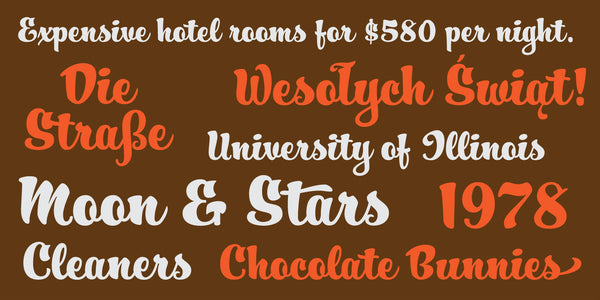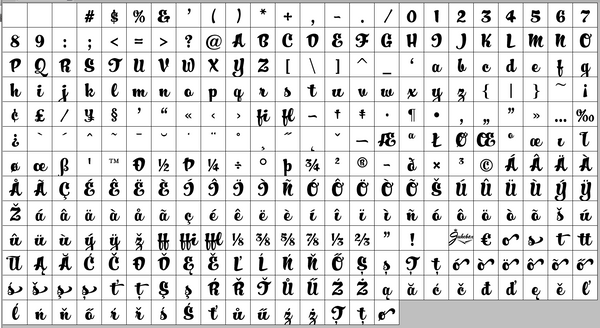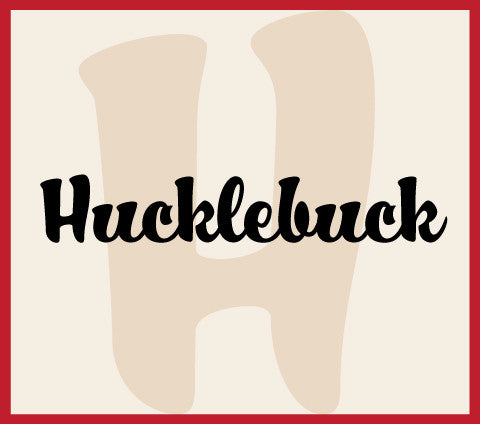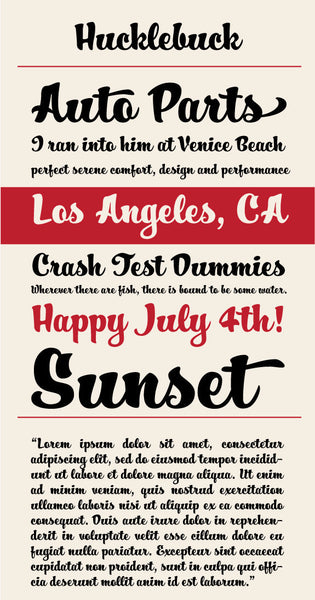
Hucklebuck
Hucklebuck is a retro, upright script font that is immensely appealing with its happy–go–lucky feel. Done in the style of hand painted sign lettering, the font was inspired by some window lettering on an old store near where I live. Hucklebuck was a pet name my mother used to call me when I was little (it's actually a kind of dance).
Notable Use: Hucklebuck was used in an issue of The Disney Magazine for the headlines on an article about the Disney MGM Studios.